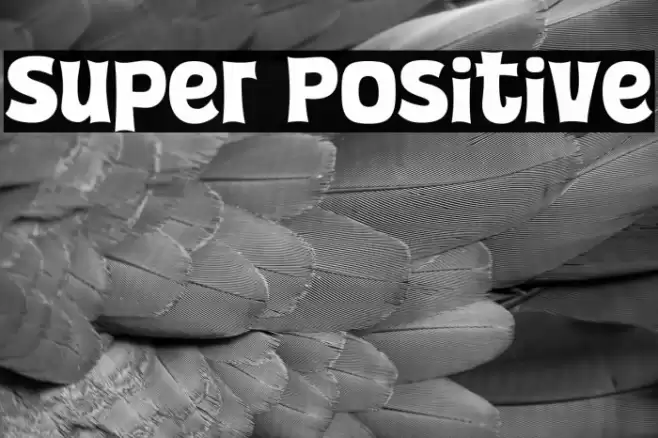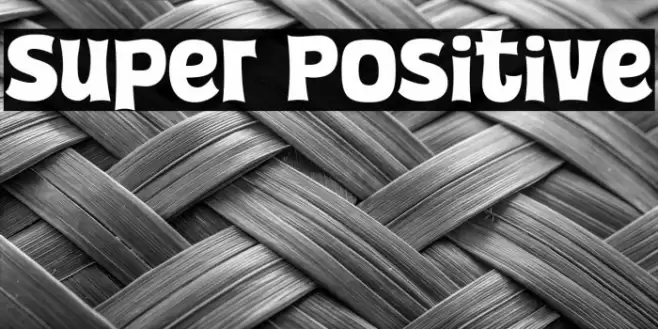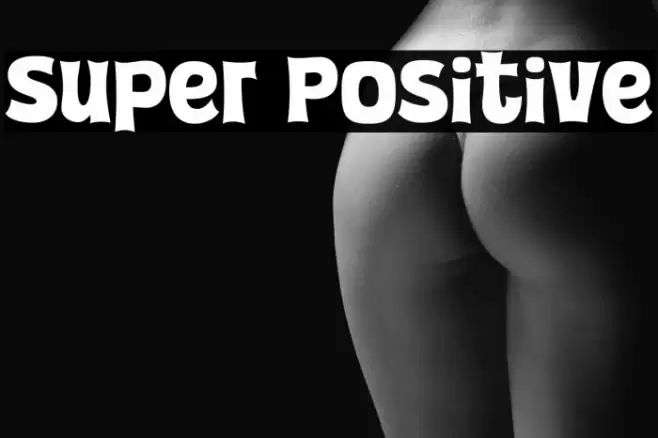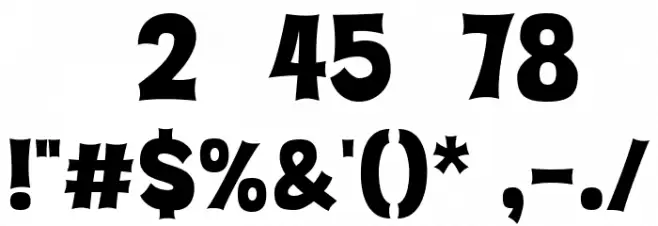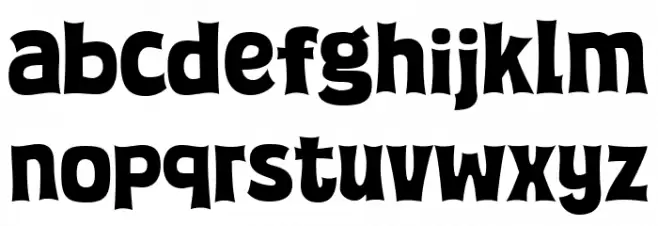
Super Positive Font
Super Positive Description
This font features a bold and playful design with exaggerated curves and a slightly whimsical appearance. The characters are thick and robust, giving a strong visual impact. The uppercase letters have a dynamic presence, while the lowercase letters maintain a consistent style with rounded edges and a friendly demeanor. The numbers are equally bold, ensuring readability and consistency across different uses. Special characters are creatively designed, adding to the font's unique charm. The overall style is decorative, making it suitable for projects that require a fun and engaging typeface.
A bold, playful font with exaggerated curves and a whimsical style from Uncategorized fonts.
- Proposed Projects: Ideal for children's books, playful branding, posters, and creative advertising.